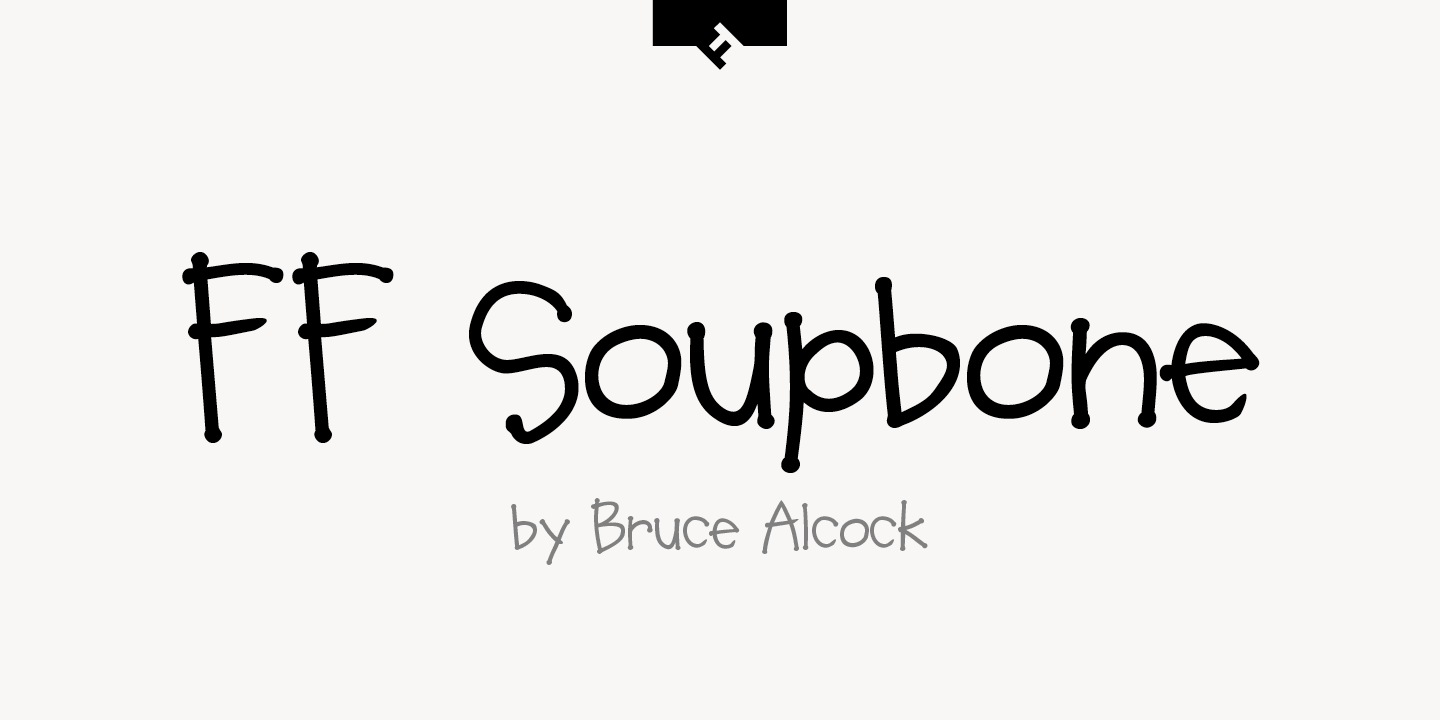
FF Soupbone Font is perfect for rustic diner branding, comfort food restaurant menus, homestyle café signage, hearty soup kitchen materials, vintage butcher shop communications, old-fashioned delicatessen labels, traditional bone broth packaging, farmhouse kitchen designs, nostalgic food truck graphics, and heartily nourishing marketing communications.
FF Soupbone Font is exciting because it captures the honest warmth and bone-deep satisfaction of traditional comfort cooking with its robustly handcrafted letterforms that seem carved from well-worn kitchen cutting boards and carry the rich flavor of recipes passed down through generations of home cooks who understand that the best meals come from the heart. Its authentically rustic character design reflects both the patient craftsmanship required for slow-simmered broths and the generous spirit that makes sharing food a sacred act of love, making it perfect for brands celebrating culinary tradition and hearty nourishment.
FF Soupbone Font family includes light, regular, medium, bold, and black weights, each with corresponding italic versions. The font family also features kitchen-inspired ornaments, comfort food ligatures, rustic symbols, and hearty decorative elements that enhance its homestyle aesthetic and traditional cooking versatility.
This heartily authentic typeface represents the perfect fusion of culinary tradition and rustic craftsmanship. FF Soupbone Font Free Download allows designers to taste its comfort appeal before making a commercial commitment. The font's ability to convey both homestyle authenticity and hearty satisfaction makes it ideal for traditional restaurants, comfort food brands, and culinary businesses targeting audiences seeking genuine comfort food experiences and nostalgic dining traditions.
Whether you're developing comfort food restaurant identities, creating traditional kitchen materials, or designing hearty food communications, FF Soupbone Font brings an unmistakable sense of rustic warmth and culinary authenticity to every project. Its robust character and comfort food heritage create powerful connections that resonate with diners seeking authentic comfort food experiences and traditional cooking values.
The font's versatility excels in food service and hospitality environments where tradition and hearty comfort are paramount. Its rustic character makes it particularly effective for diners, comfort food restaurants, traditional delis, and food brands seeking to establish warm relationships with customers who appreciate authentic comfort cooking and nostalgic dining experiences.
For designers working on projects requiring genuine comfort food appeal and rustic authenticity, FF Soupbone Font provides an exceptional solution. Its heartily robust presence and comprehensive comfort food elements offer the tools needed for creating truly nourishing communications, while its traditional warmth ensures your designs capture the bone-deep satisfaction and generous hospitality that defines the most memorable comfort food experiences and cherished culinary traditions.